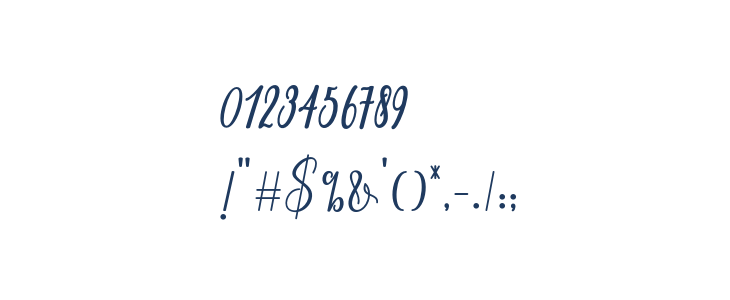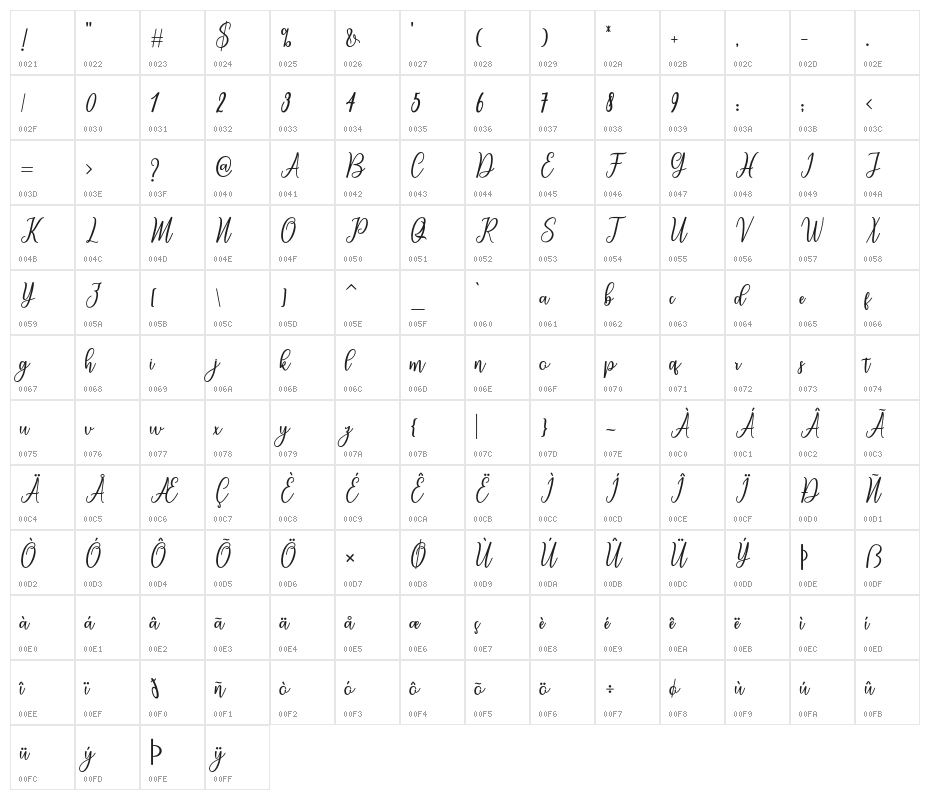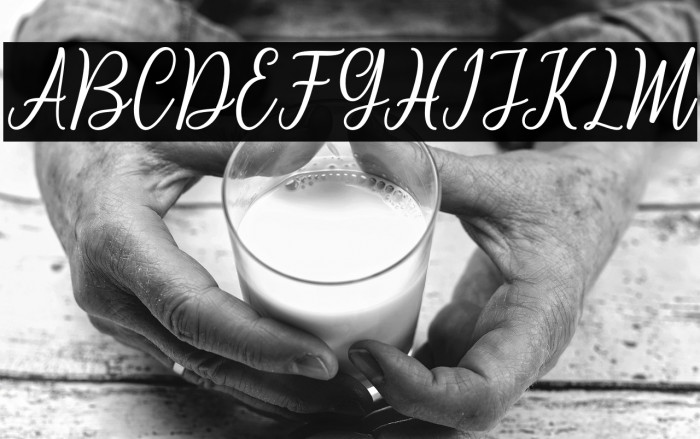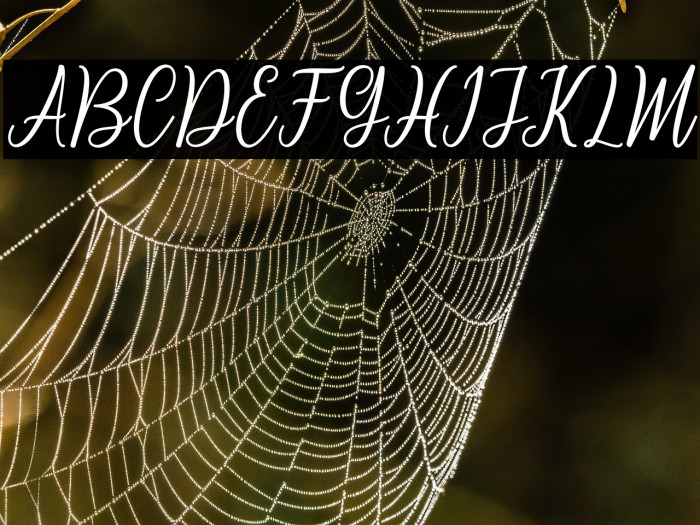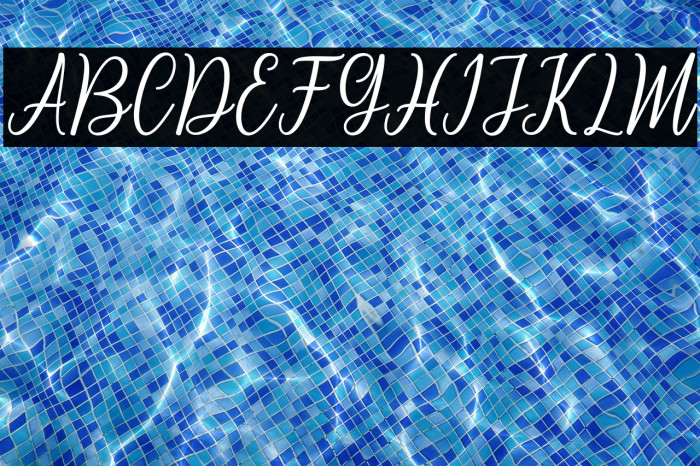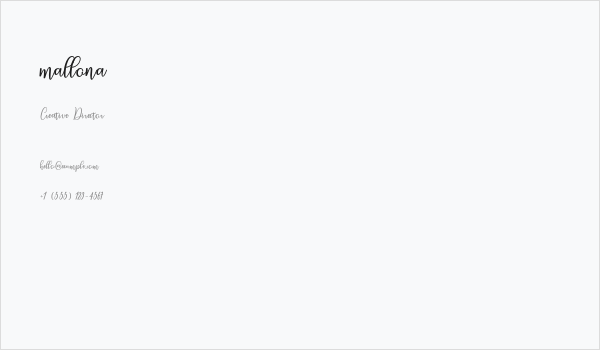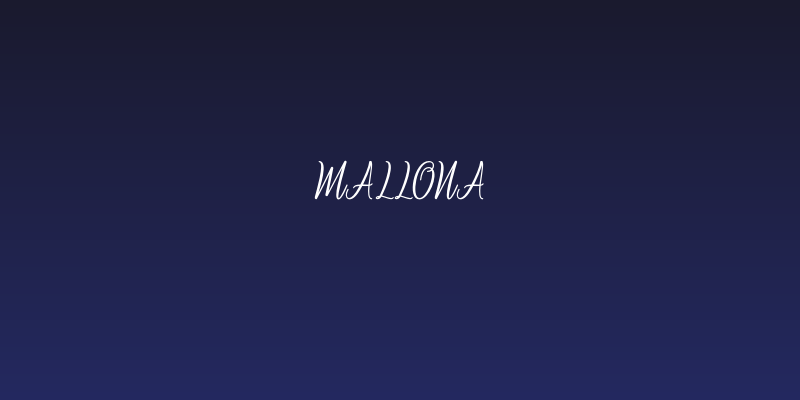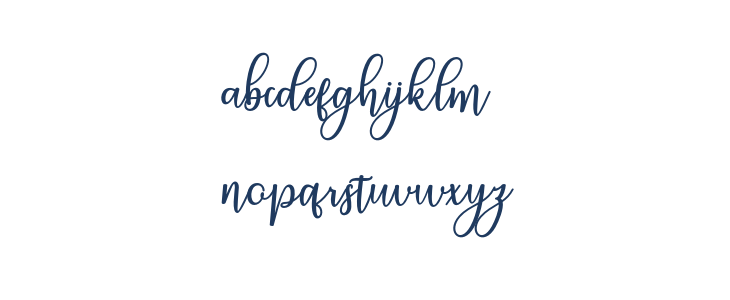
mallona Font
mallona Description
This font features an elegant and flowing script style, characterized by its smooth, cursive letterforms. The uppercase letters are tall and graceful, with sweeping curves and a consistent slant, giving a sense of movement and fluidity. The lowercase letters maintain a similar style, with rounded edges and a slightly more compact form, enhancing readability while preserving the decorative nature. The numerals are designed to match the script style, with a harmonious blend of curves and straight lines. Special characters are thoughtfully integrated, maintaining the overall aesthetic. This font is ideal for projects that require a touch of sophistication and elegance.
Overall StyleElegant
Use CaseLogos, Invitations, Decorative text
Proposed ProjectsWedding invitations, greeting cards, branding, and elegant packaging designs.